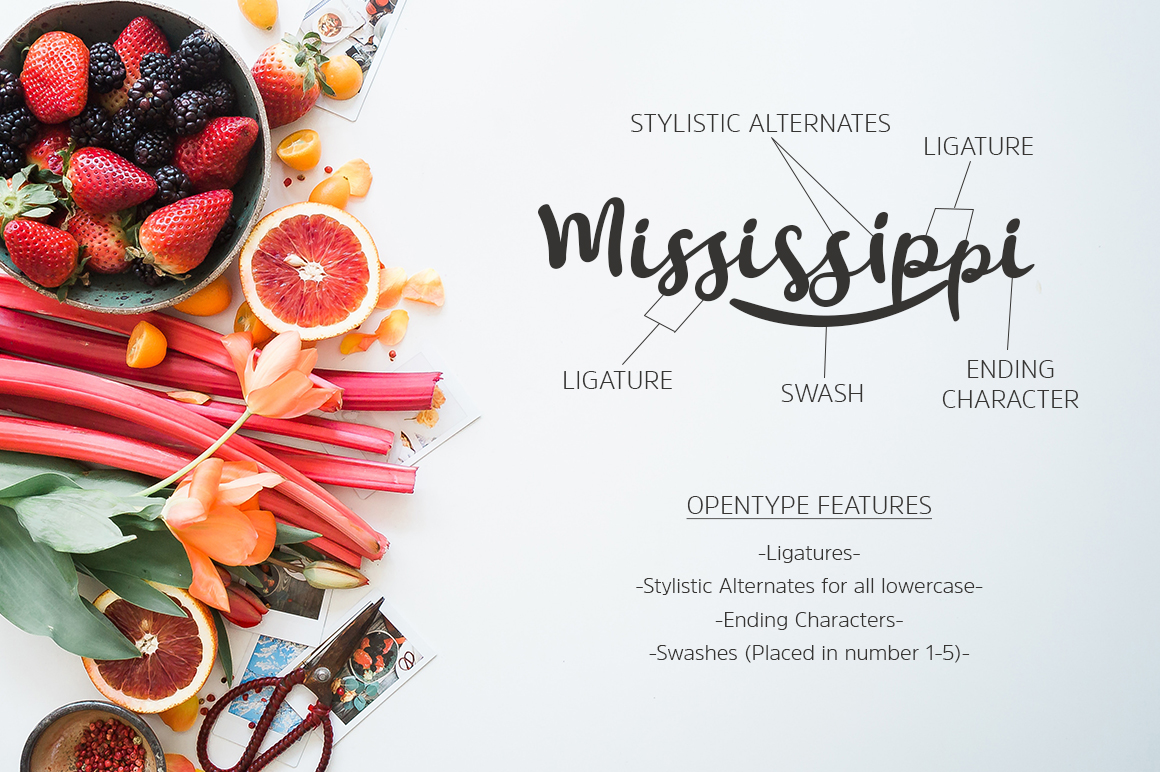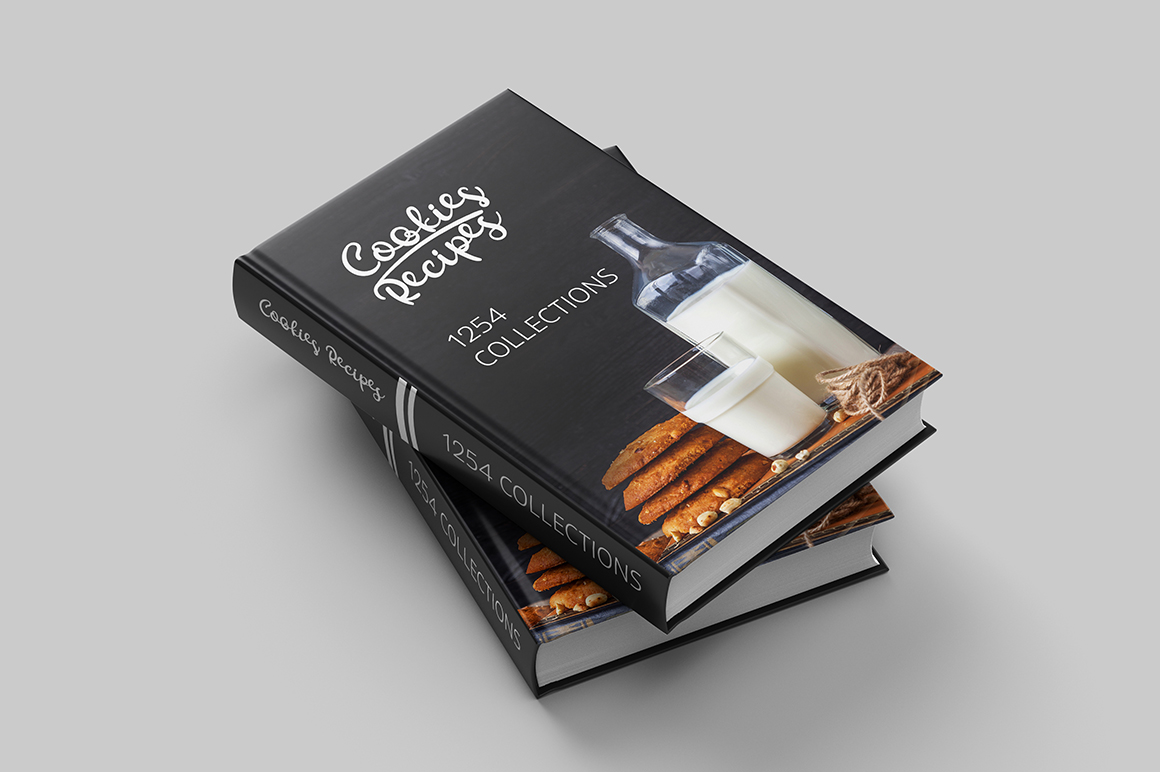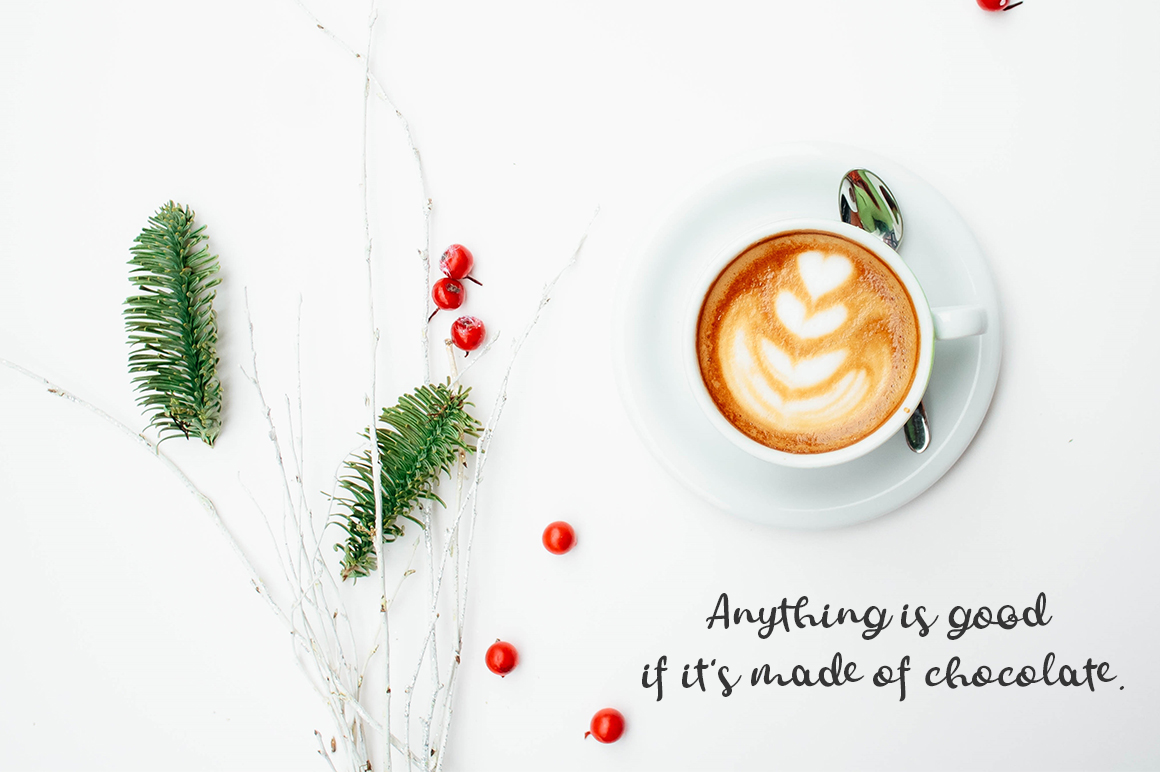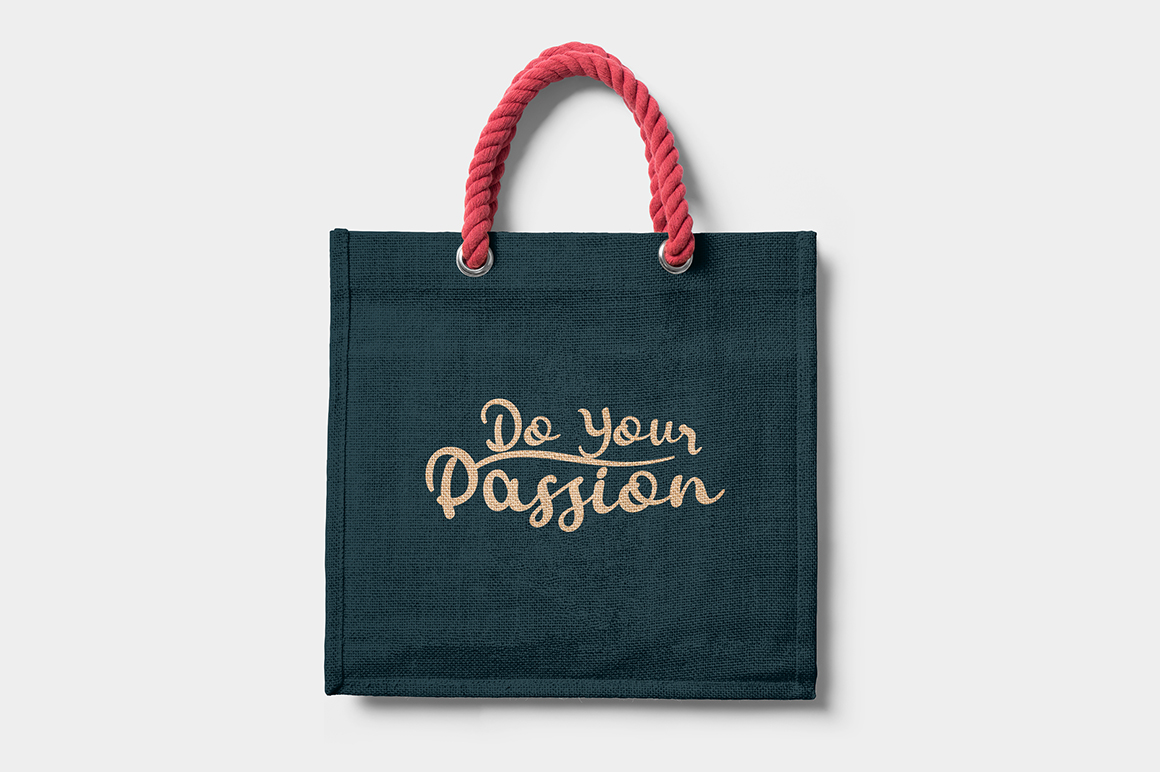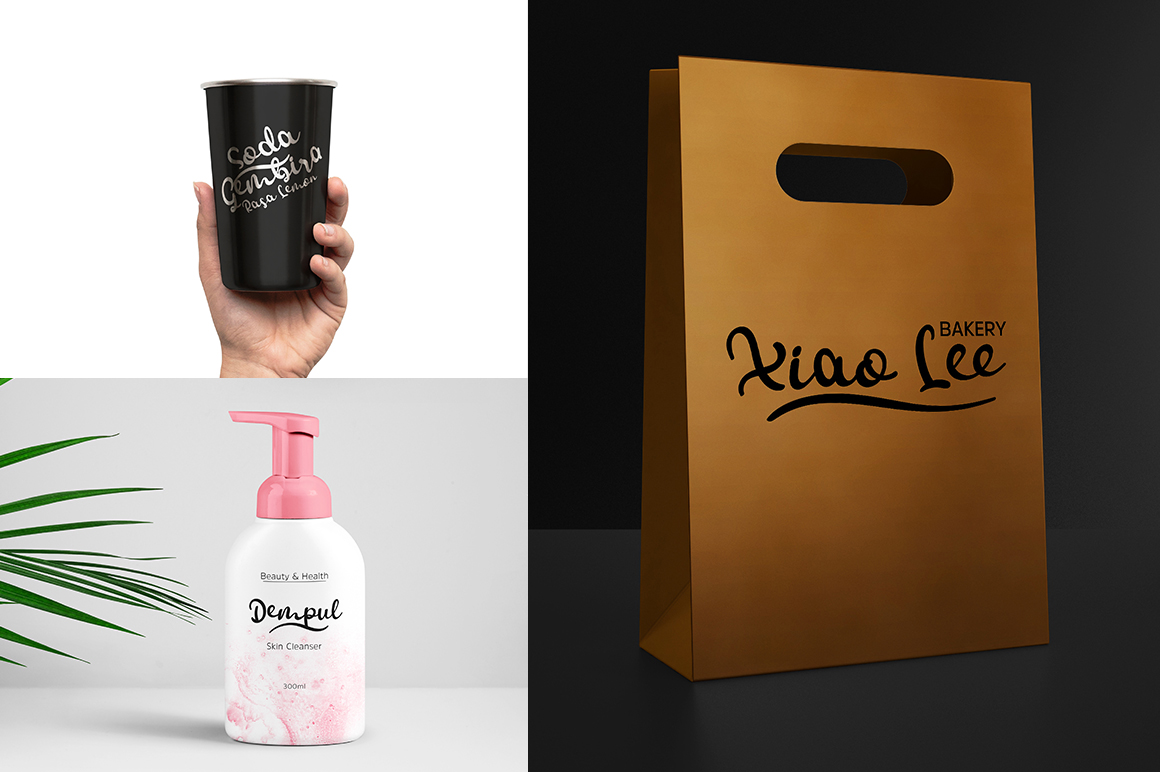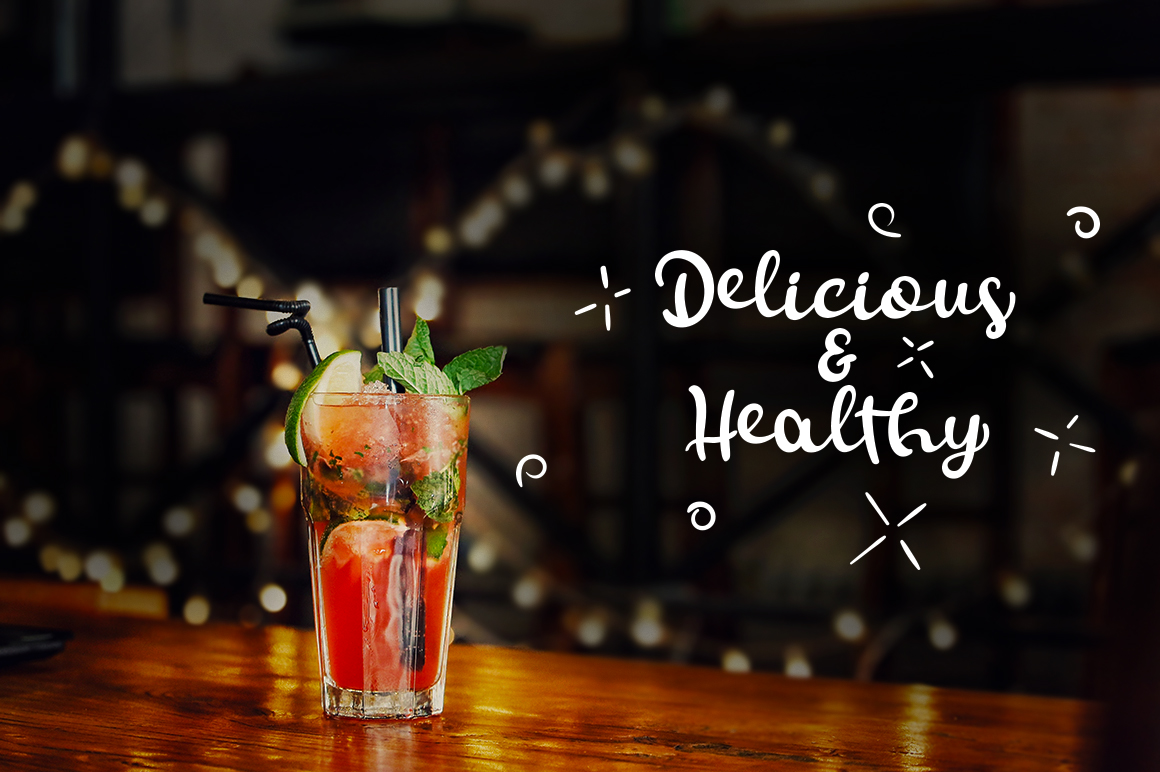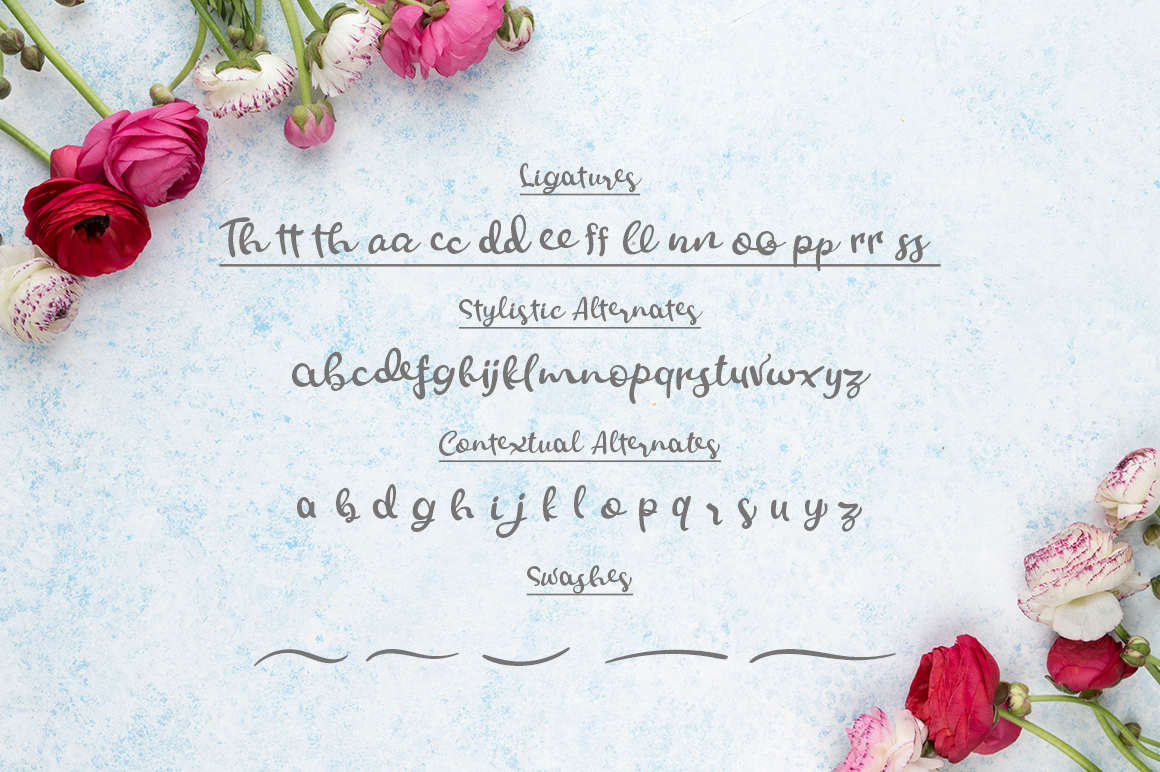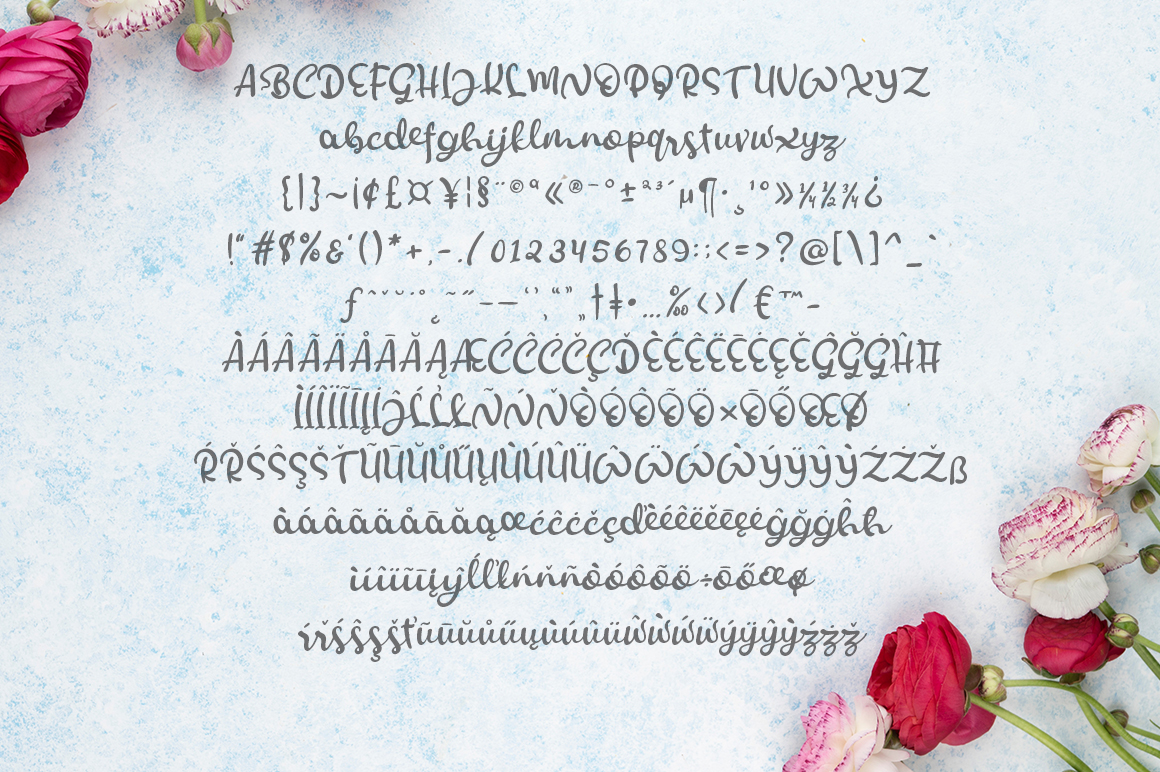
Smoothy Font
About Smoothy Font
Smoothy is a sweet, bold, brush pen font. It has very smooth edges (hence the name) and is very suitable for a large range of different designs.